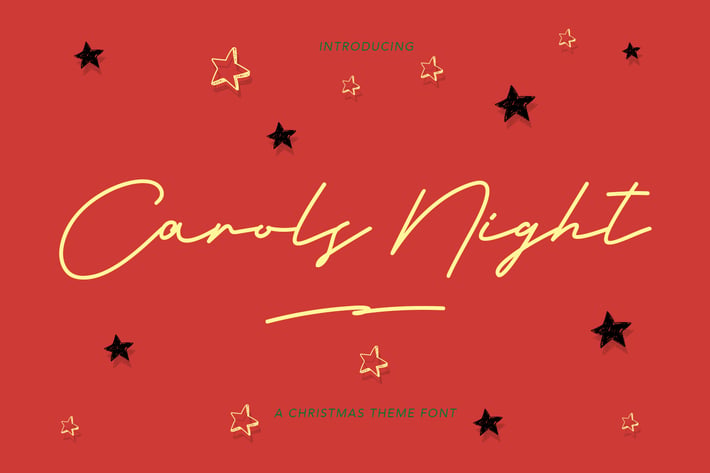
Carols Night Christmas Theme Font
Give your designs an authentic handcrafted feel. “Carols Night Christmas Theme Font” is perfectly suited to stationery, logos and much more.